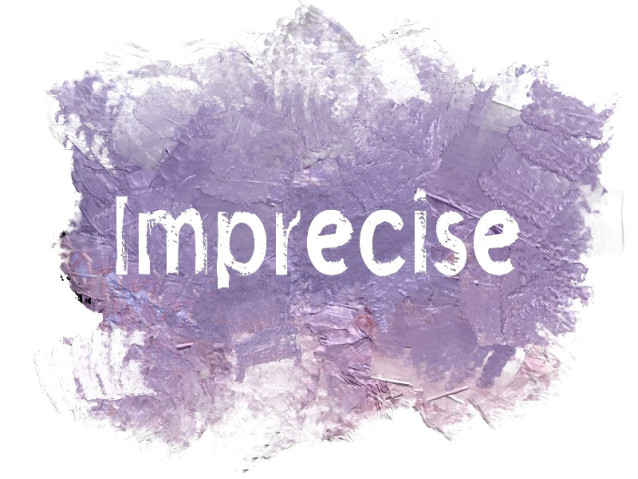
Imprecise Font
Imprecise Font is a simple and modern display font suitable for quotes, logos, headings, titles, and many more. Use it on any of your creative projects, and your designs will become outstanding!